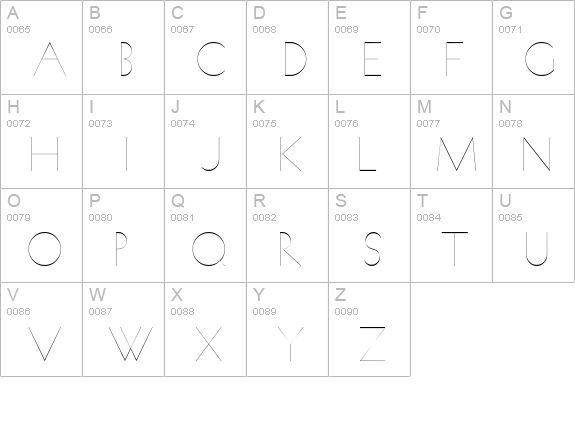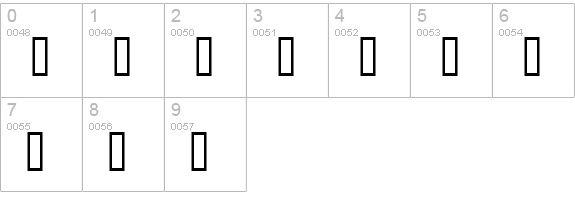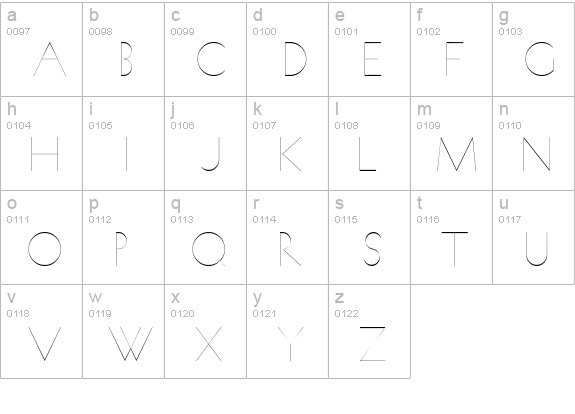
The Koch Quadrat Inline font is a sleek and modern typeface that is perfect for adding a touch of sophistication to any design project. Its clean lines and sharp edges give it a contemporary feel, while its unique inline style adds a dynamic element that sets it apart from other fonts. The Koch Quadrat Inline font is versatile and can be used for a wide range of applications, from logos and branding to headlines and promotional materials. What's even better is that the Koch Quadrat Inline font is completely free to download at FontsMarket.com. This means you can add this stylish font to your collection without any cost, making it a valuable resource for your creative projects. Don't miss out on the opportunity to enhance your designs with the Koch Quadrat Inline font – download it for free today!